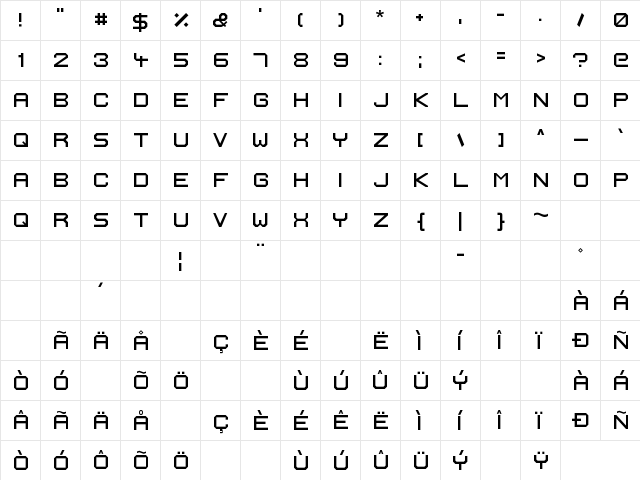
Ignis et Glacies Regular
Design Context for Ignis et Glacies Typeface
Ignis et Glacies takes a measured approach to typography — its balanced proportions and neutral character make it a reliable workhorse for both digital and print work.